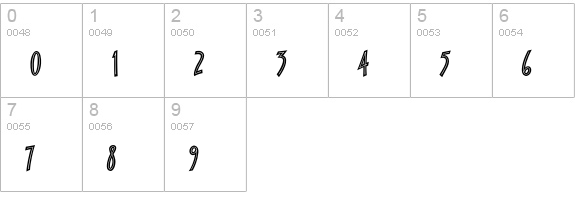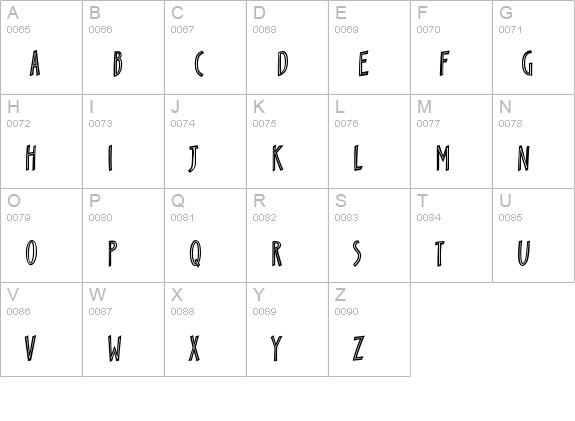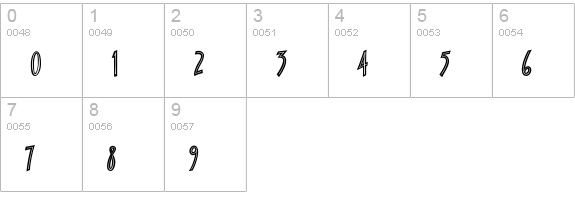
ScampBoldInline Font Details
Introducing ScampBoldInline, a striking and unique font that will add a touch of boldness to any project. With its meticulously crafted design and attention to detail, this font is perfect for capturing attention and making a statement. The bold and inline combination creates a captivating visual effect that is sure to leave a lasting impression. What makes ScampBoldInline even more appealing is that it is available for free download at FontsMarket.com. Yes, you heard it right, this incredible font can be yours without spending a dime. FontsMarket.com is a trusted source for high-quality fonts, and they are generously offering ScampBoldInline as a free download to enhance your creative endeavors. Whether you are designing a logo, creating eye-catching headlines, or adding a touch of flair to your social media posts, ScampBoldInline is the perfect choice. Its bold and dynamic appearance will effortlessly elevate your designs and make them stand out from the crowd. Don't miss out on the opportunity to add ScampBoldInline to your font collection. Download it for free at FontsMarket.com and unleash your creativity with this remarkable font. Embrace the boldness and make a statement with ScampBoldInline today!